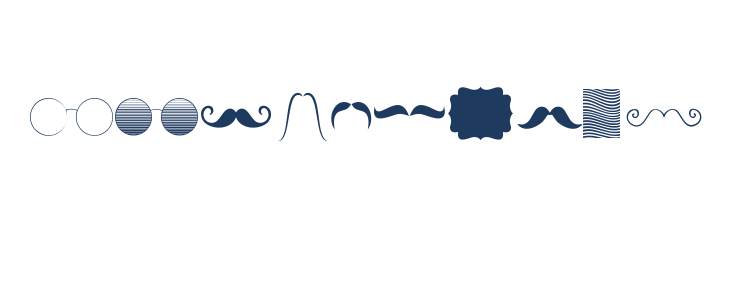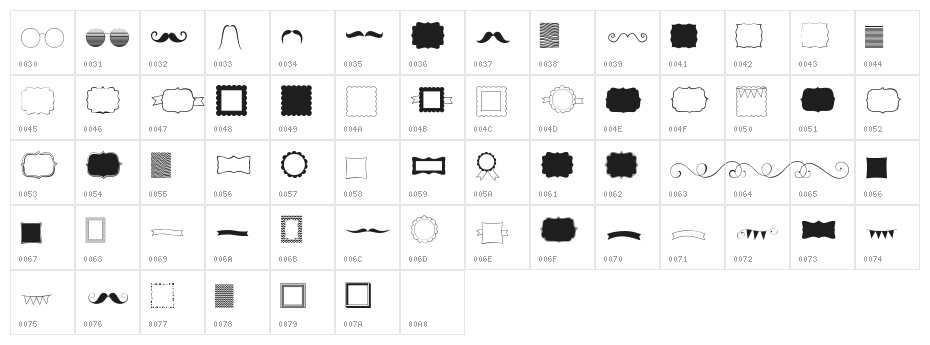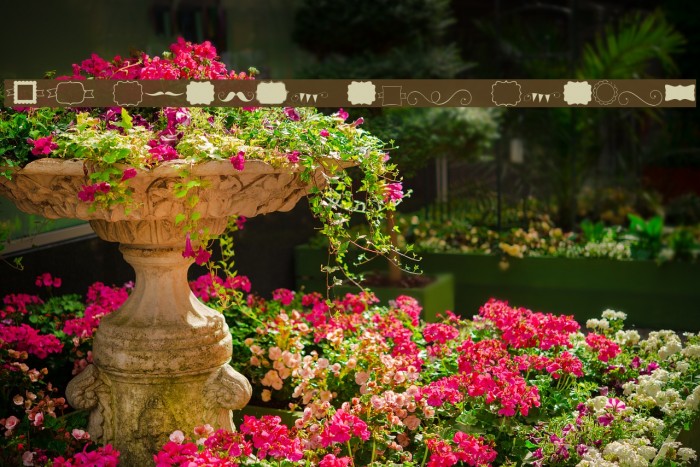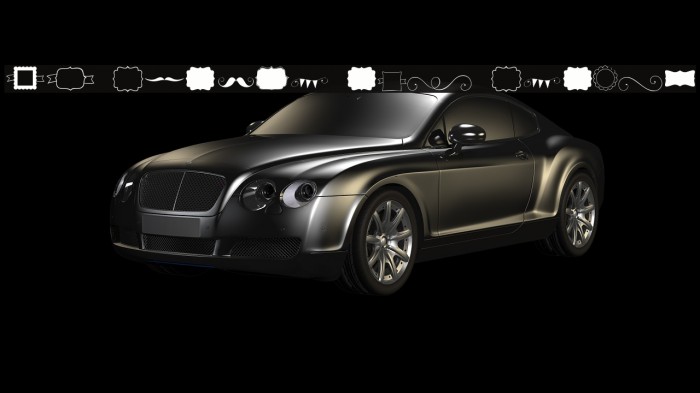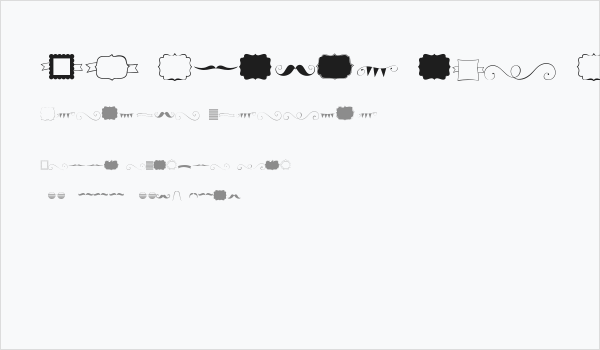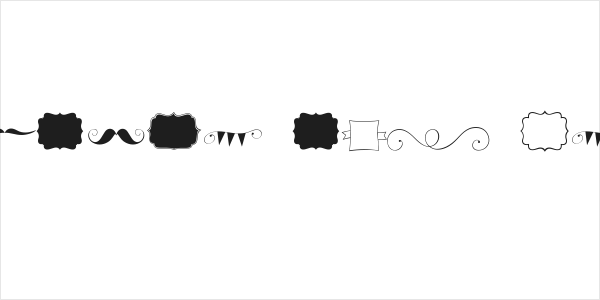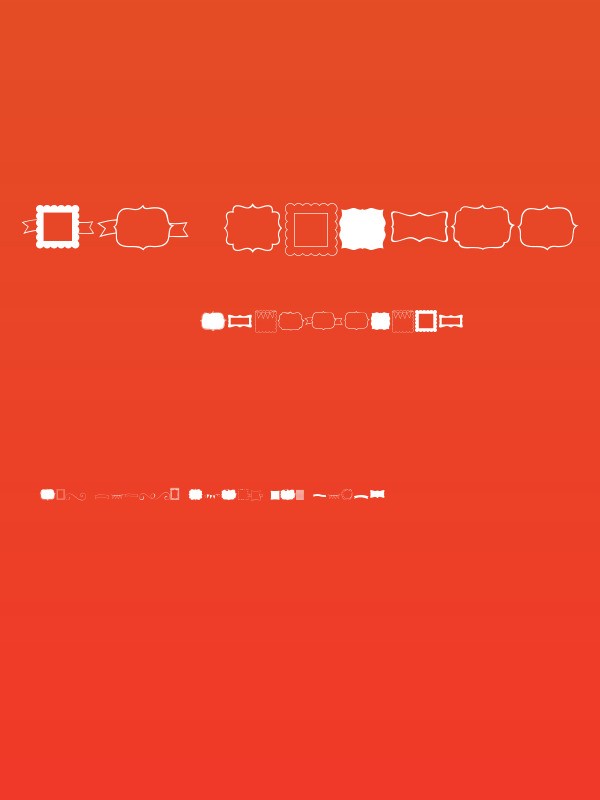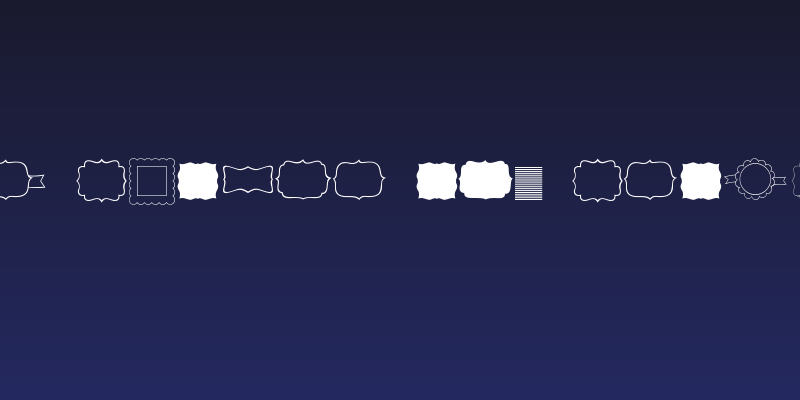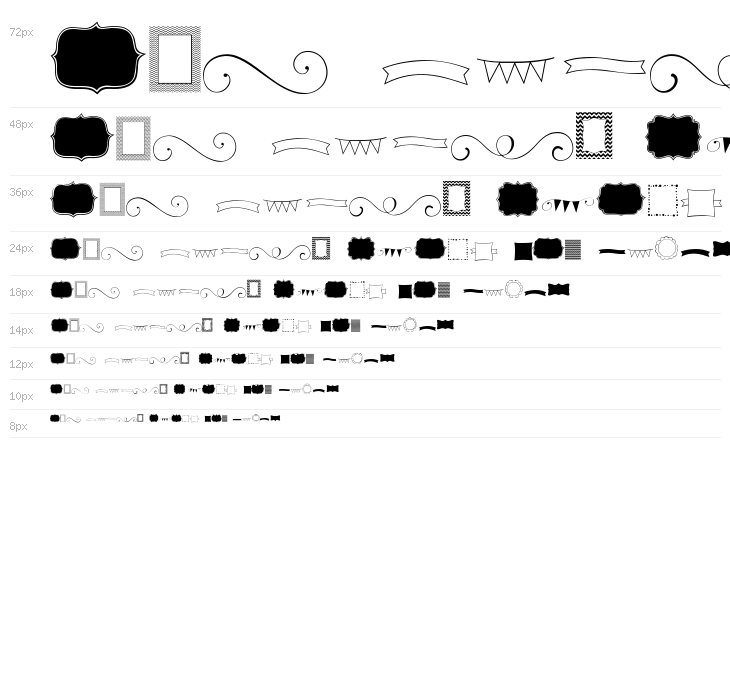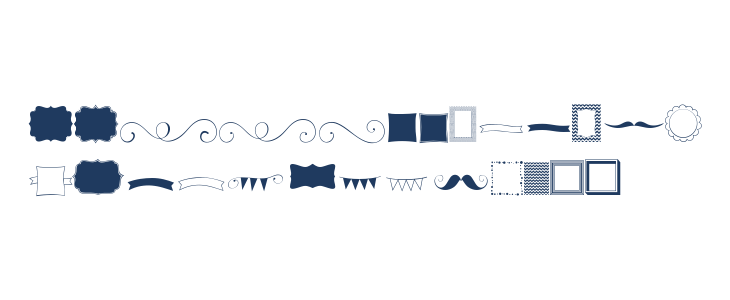
KG Flavor and Frames Font
KG Flavor and Frames Description
A decorative dingbat font featuring a variety of hand-drawn frames, banners, swirls, mustaches, and ornamental shapes in both solid and outline styles. The elements are playful and whimsical, suitable for embellishing creative projects.
| Overall Style | Decorative, Playful, Hand-drawn |
| Use Case | Decorative elements, Borders, Accents, Craft projects |
| Proposed Projects | Scrapbooking, invitations, greeting cards, posters, classroom materials, DIY crafts. |